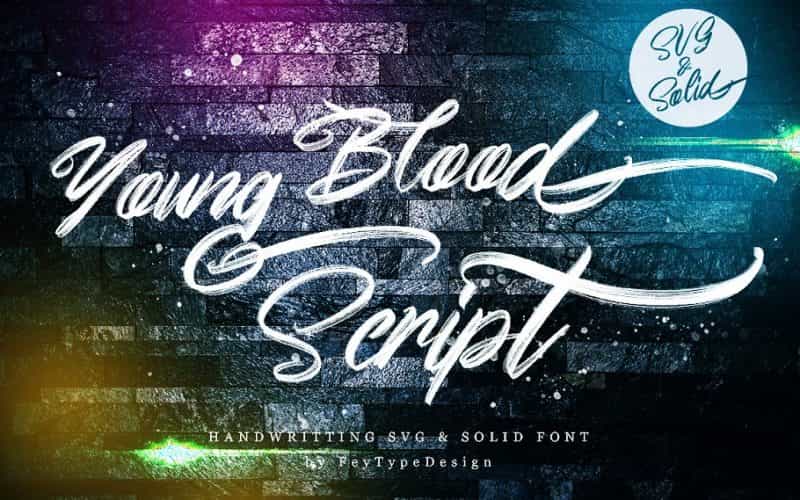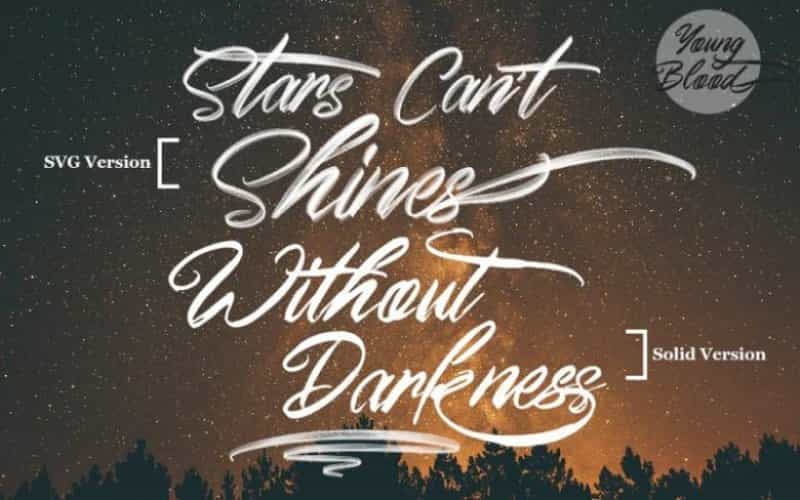
Young Blood is a handwritten script font with a messy grunge style. It has two versions, SVG and Solid. Perfect for design, element design, wedding, event, t-shirt, logo, badges, sticker and other fantastic work, etc…